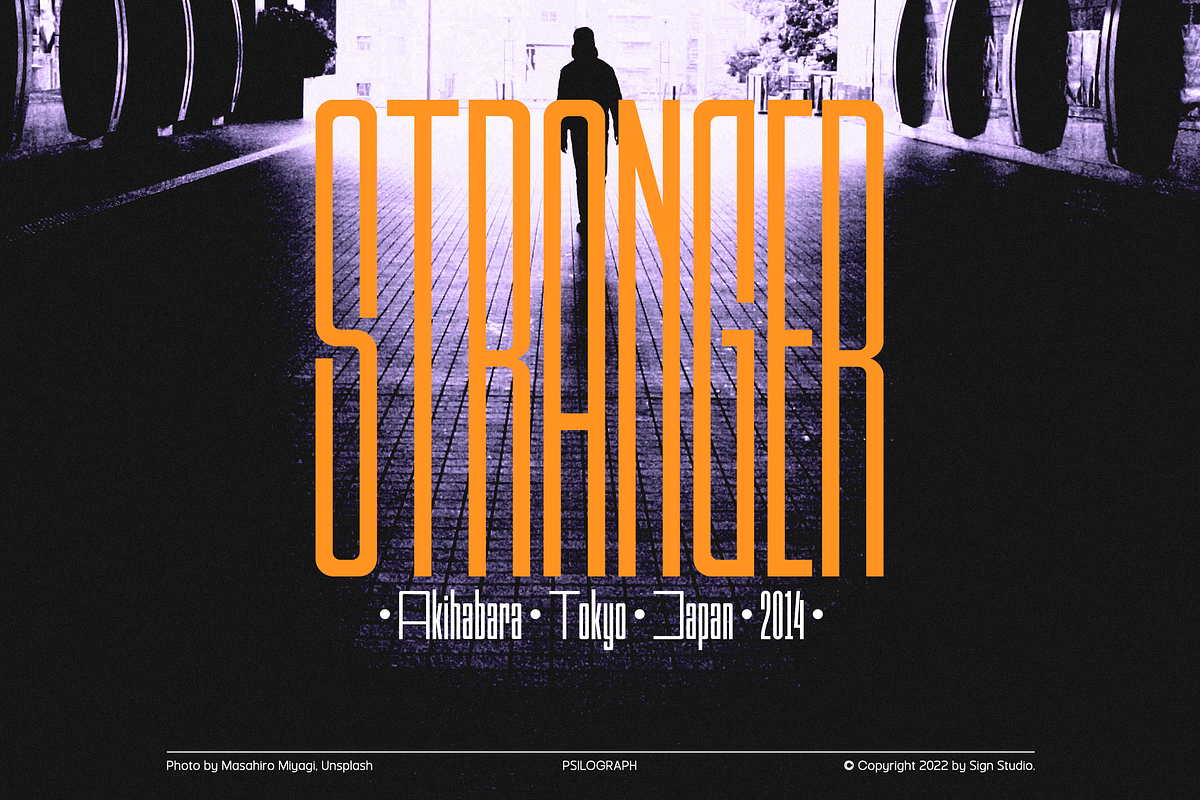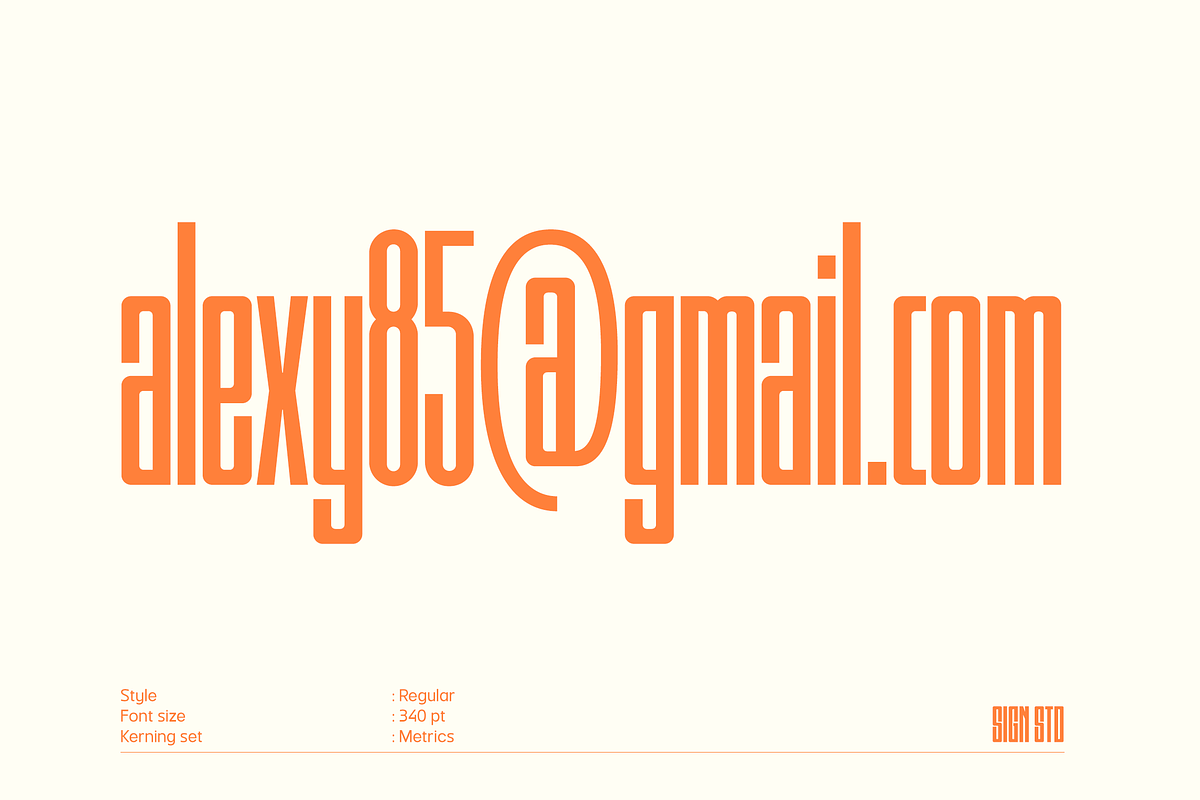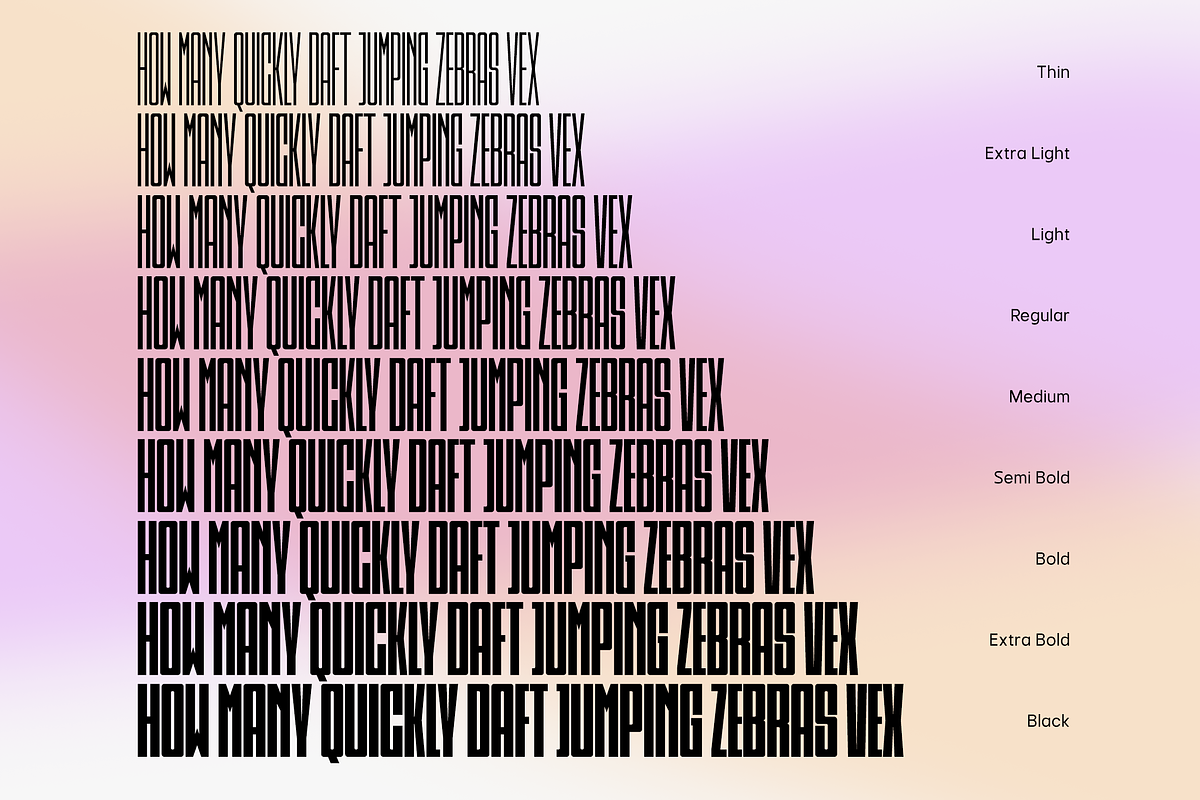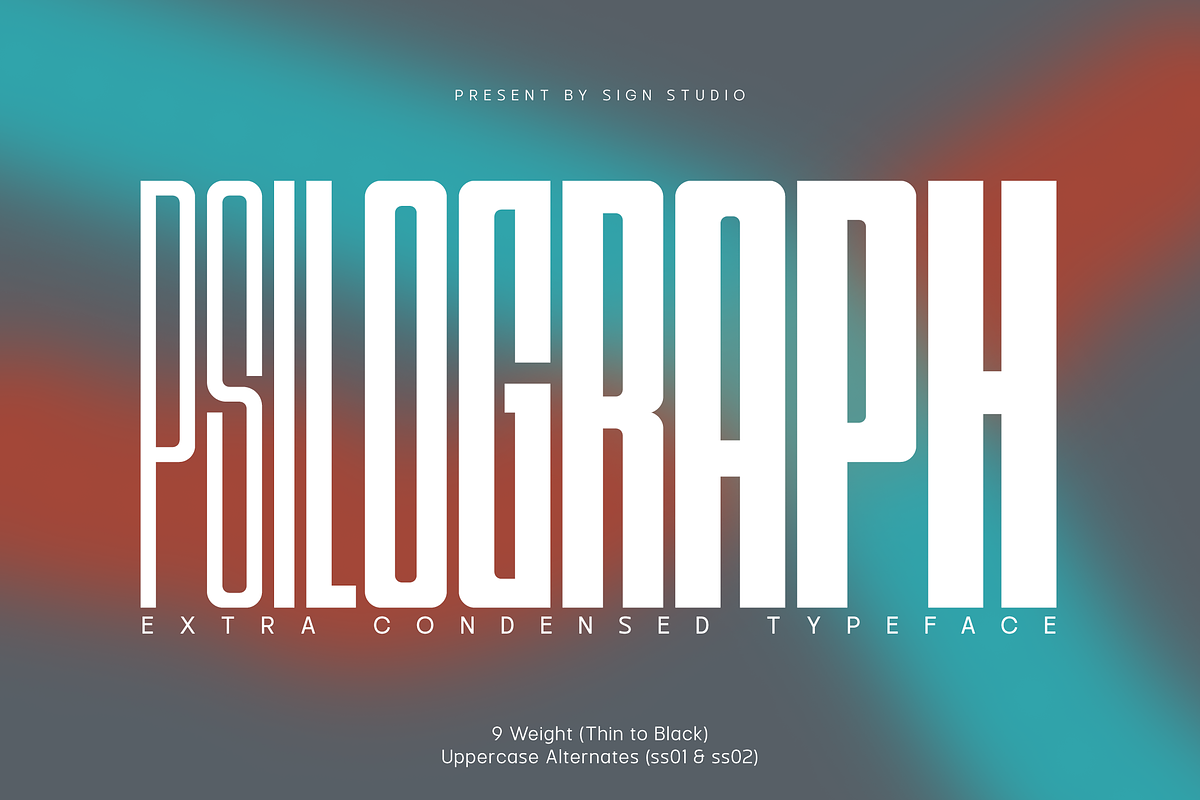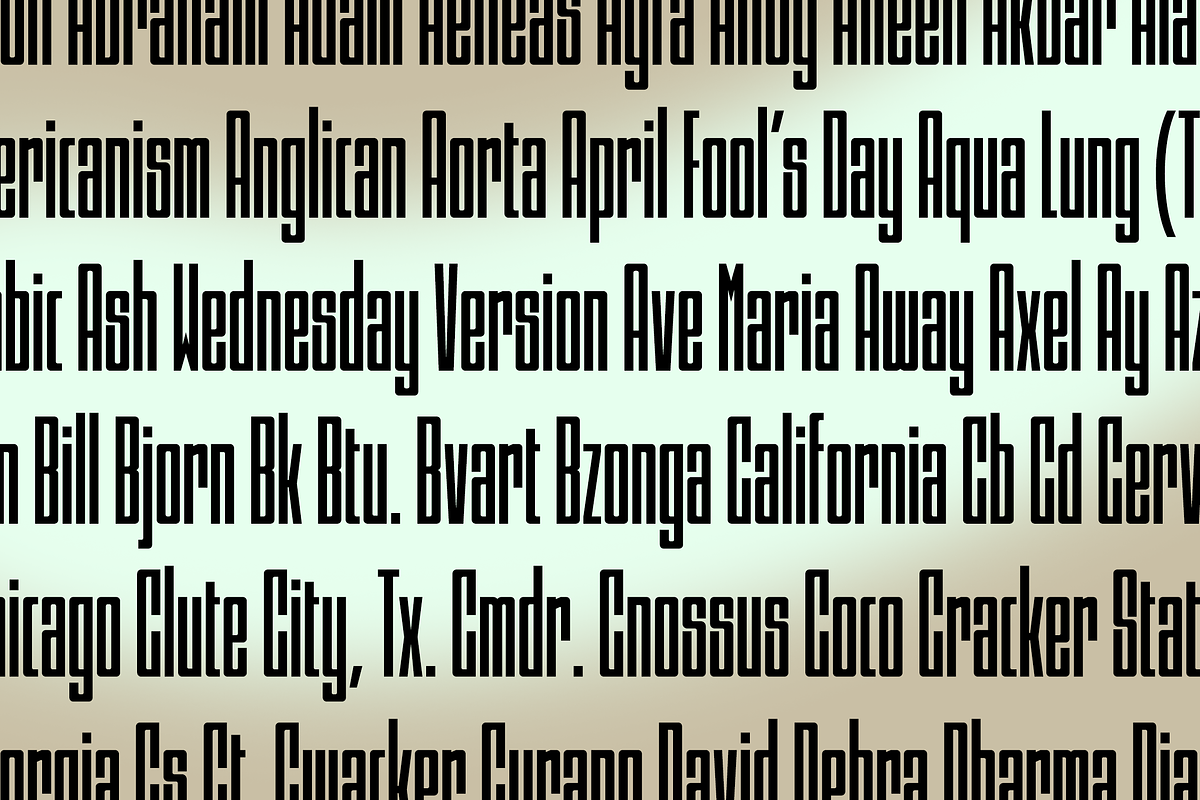
Psilograph - Extra Condensed
Psilograph is a extra condensed type style. It will give a strong impression which can be matched with basic sans serif fonts as a body copy that can make it more casual and modern looks. Perfect for headlines, tall-format prints, posters, and displays.
- 9 thicknesses available will make it easier for you when making choices on the design.